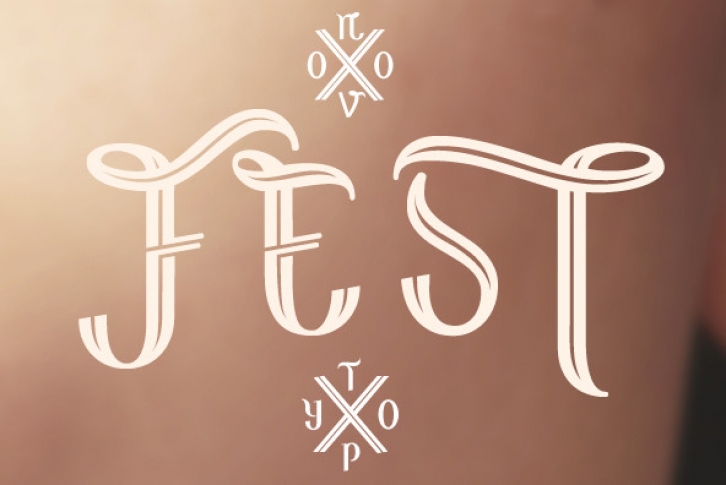
Fest is perfect for designing sophisticated logo's, fashionable headings or other beautiful display typography. The unicase glyph set of Fest contains a lot of extra elegant glyphs, swooshes and ligatures.